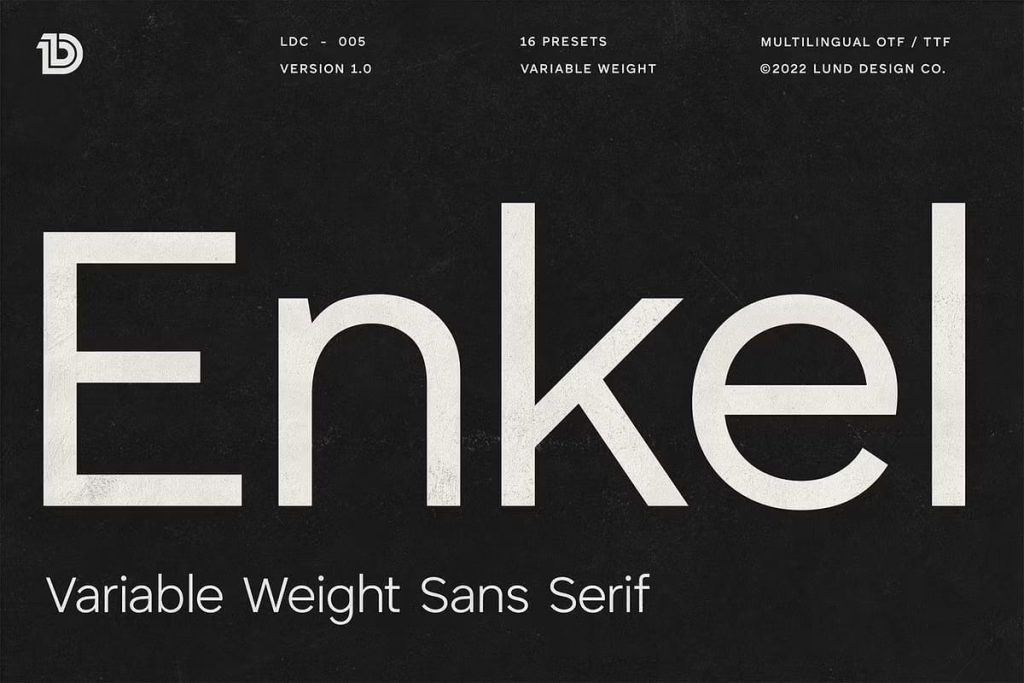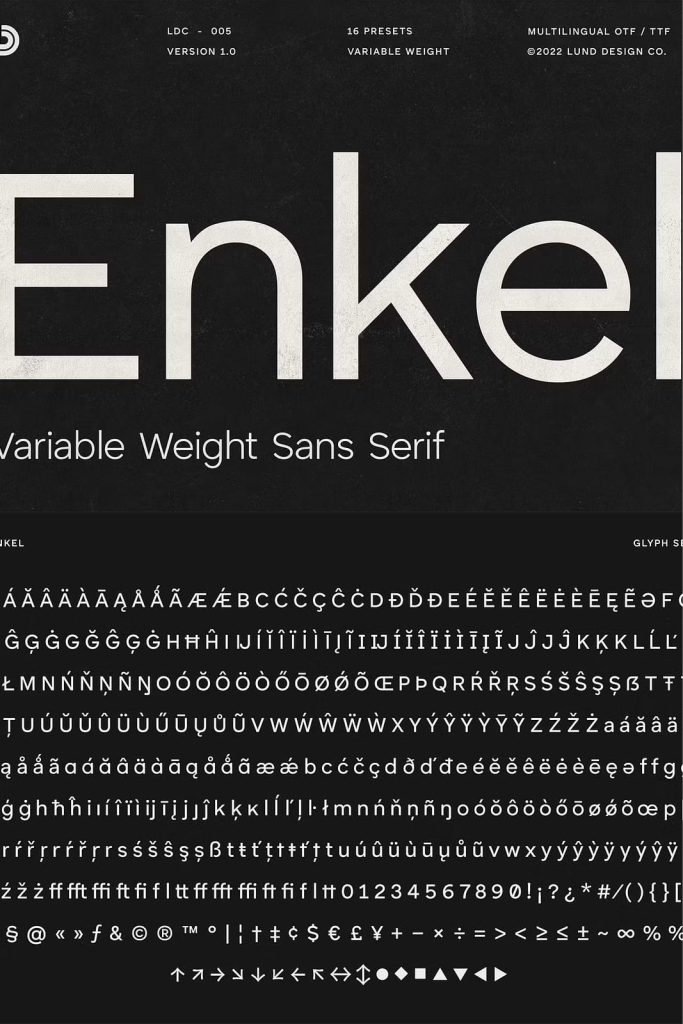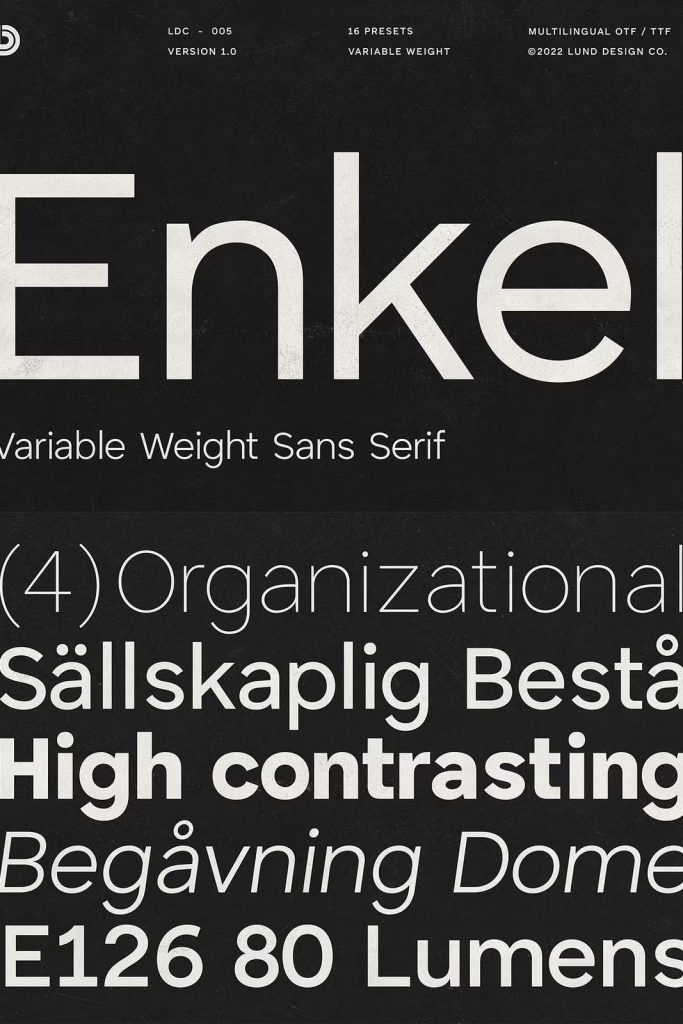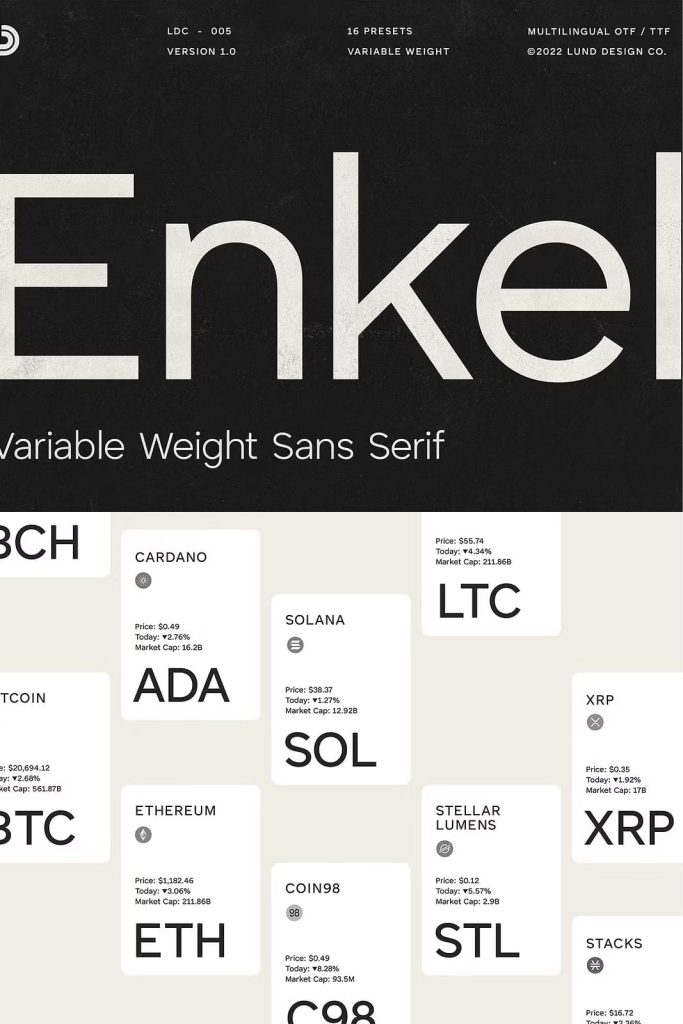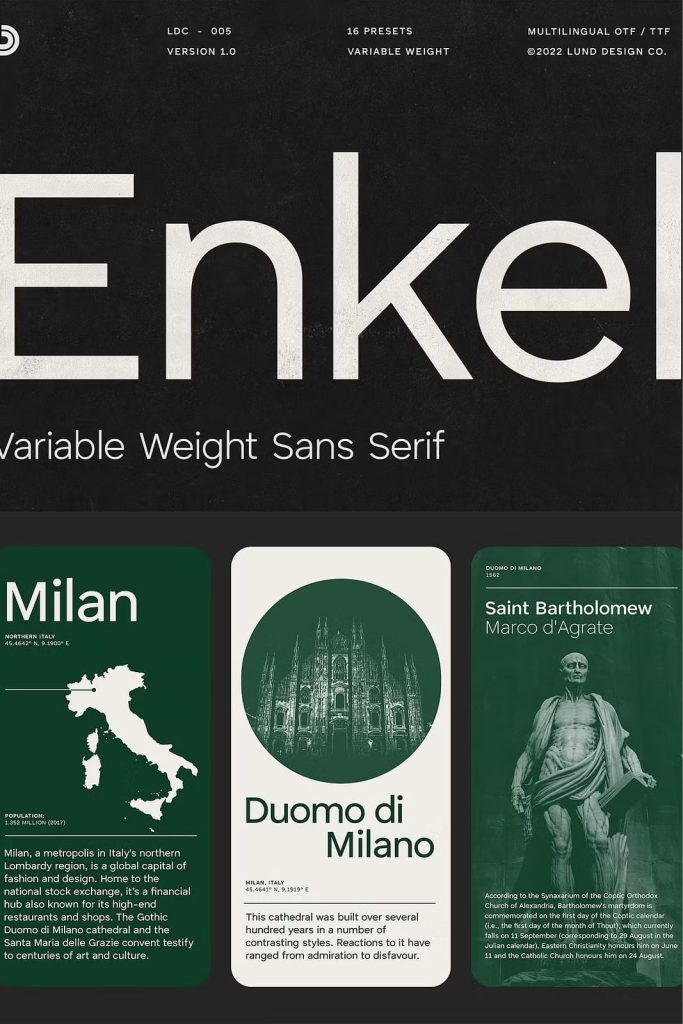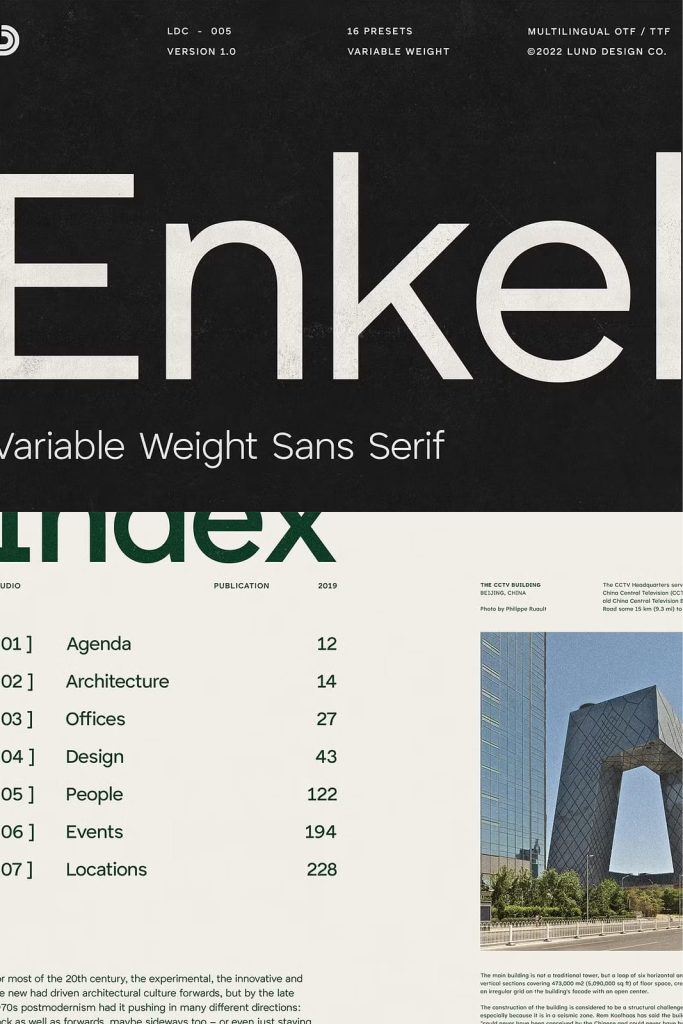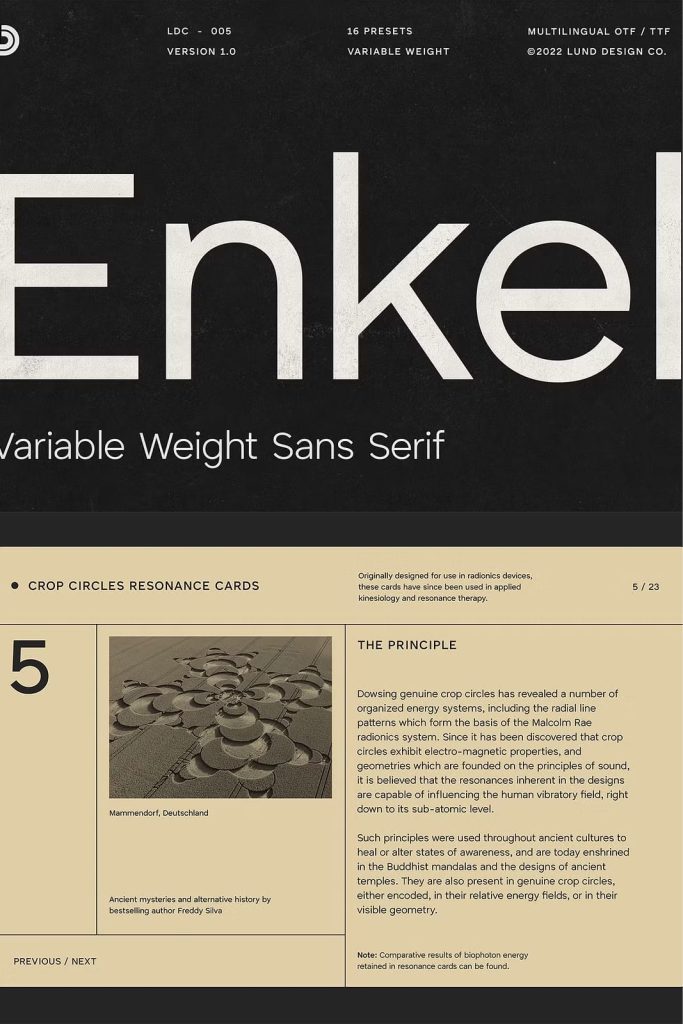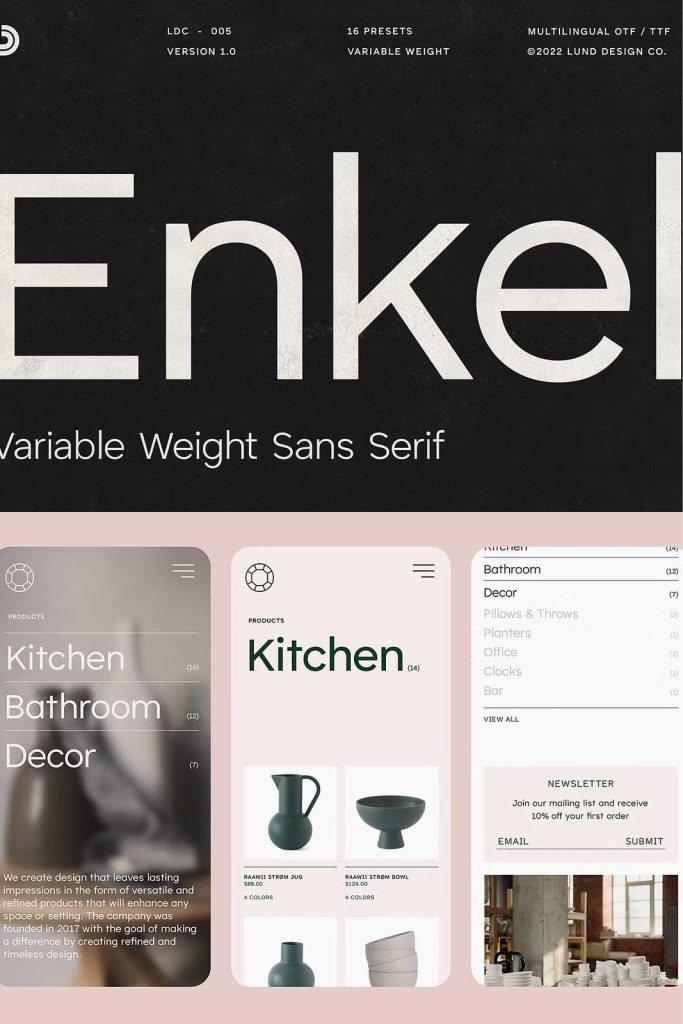
Enkel is a sans serif font family with multiple stylistic sets and variable weights. It is a versatile mix of Geometric and Neo-grotesk design which offers the power of a display face at large sizes and ease of legibility in smaller, long-form text; giving it flexibility for a broad range of uses.
It includes accents & multilingual characters.